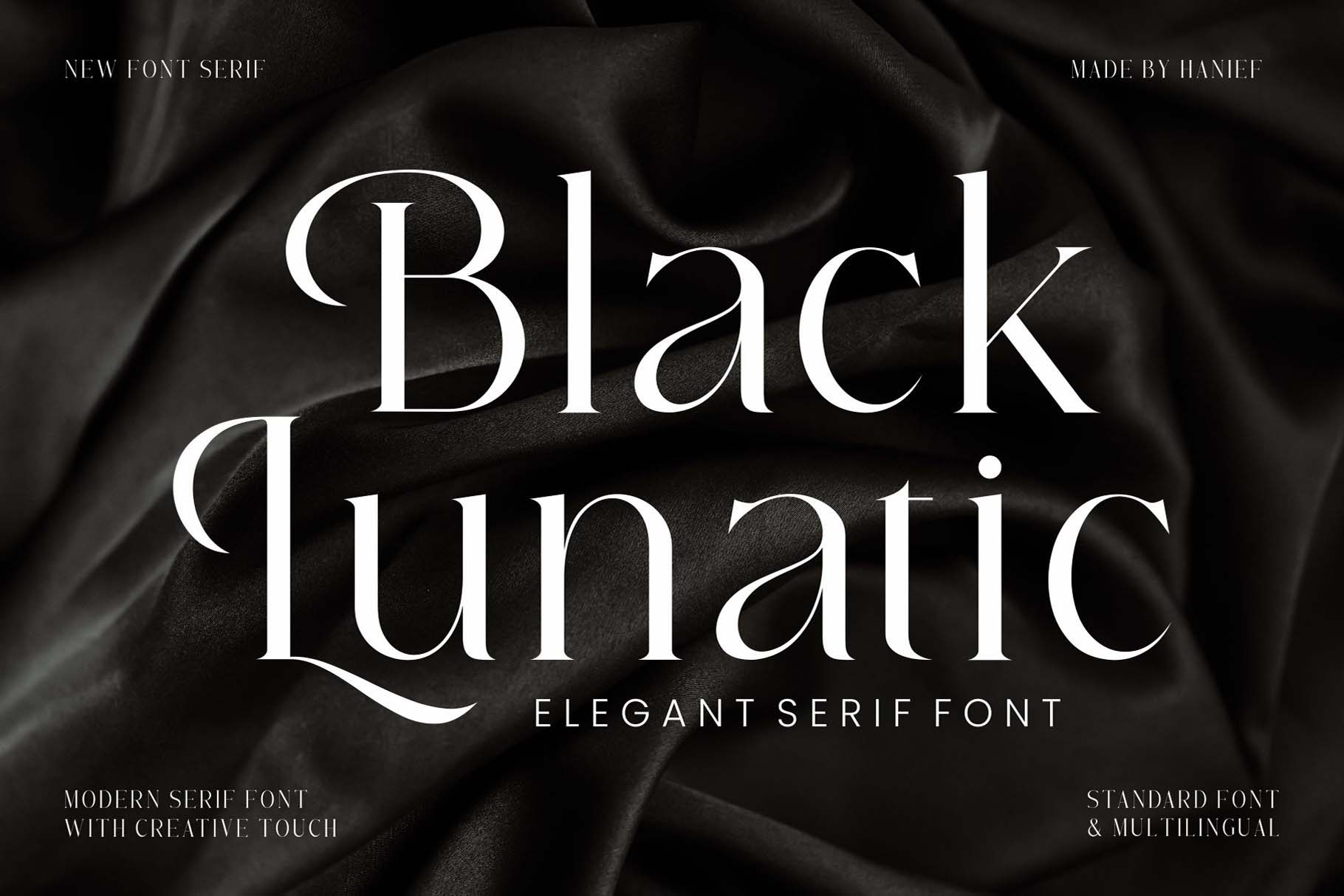
- Black Lunatic – Elegant Serif Font
This modern serif typeface features serifs. Perfect for gorgeous logos & titles, Black Lunatic will pair beautifully with many fonts and work well with whatever project you’re working on.
- Containing full set of punctuation and numerals
- Include Alternate, Swash & stylistic set Typeface.
- An broader version of the font for a Black Lunatic different feel.